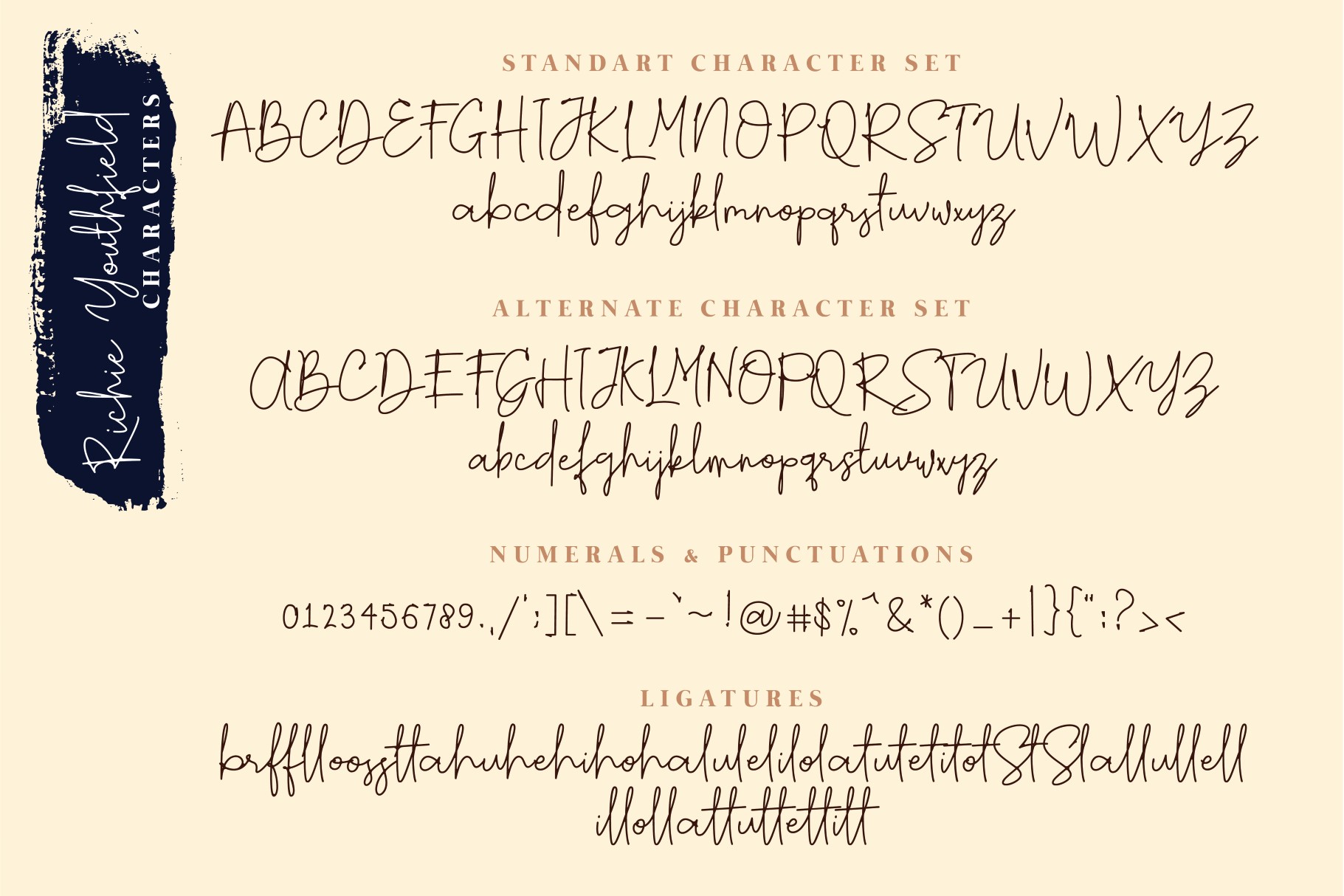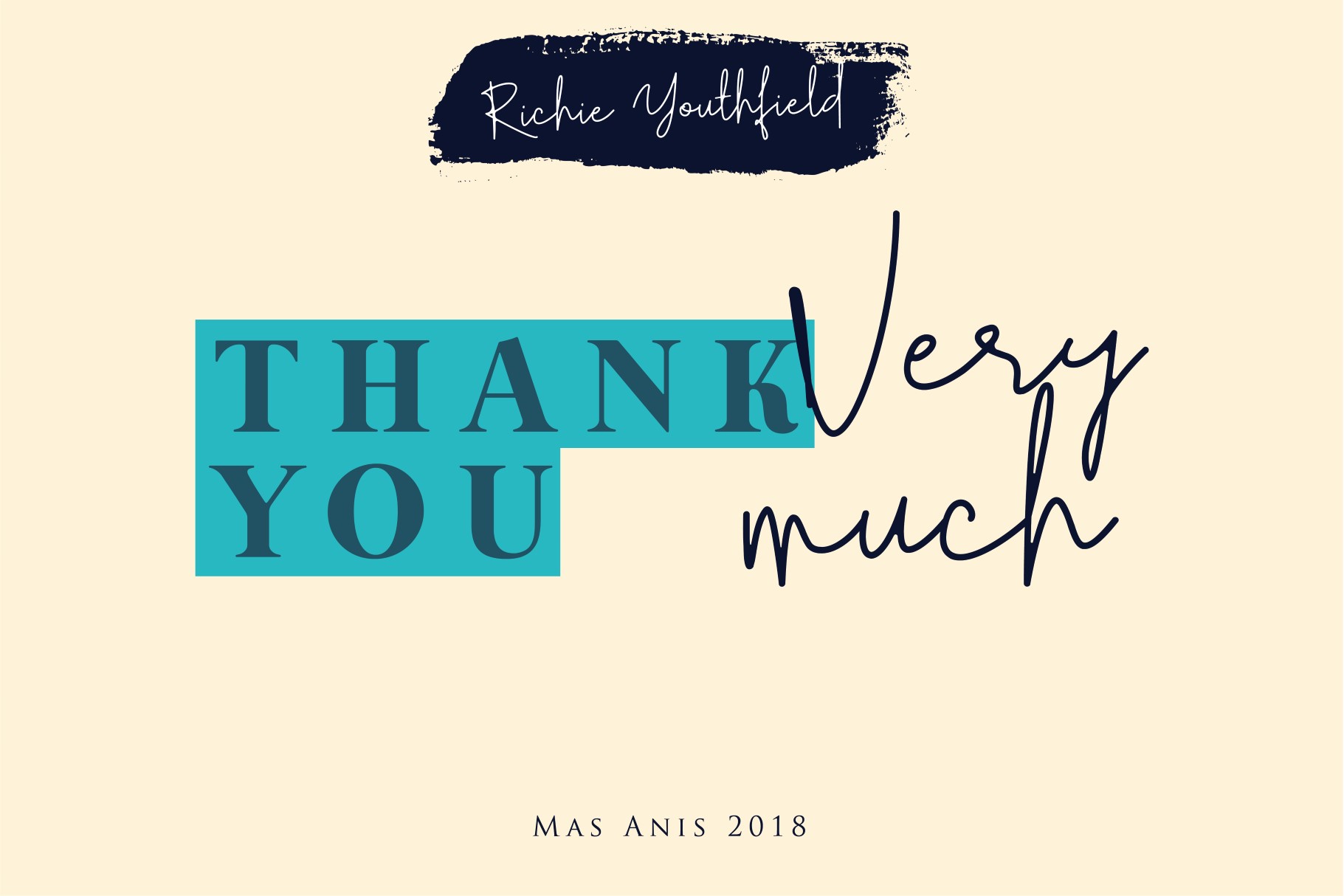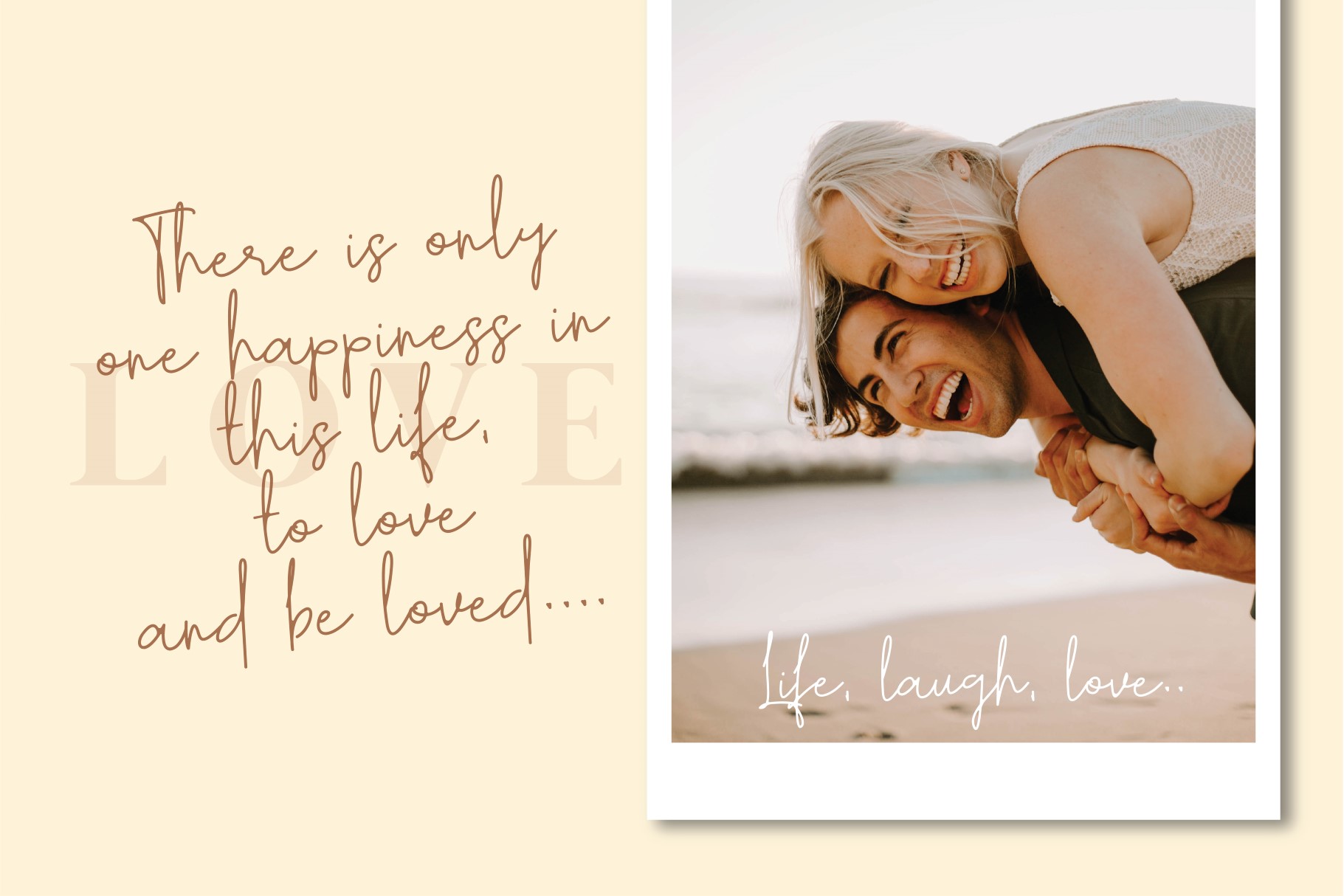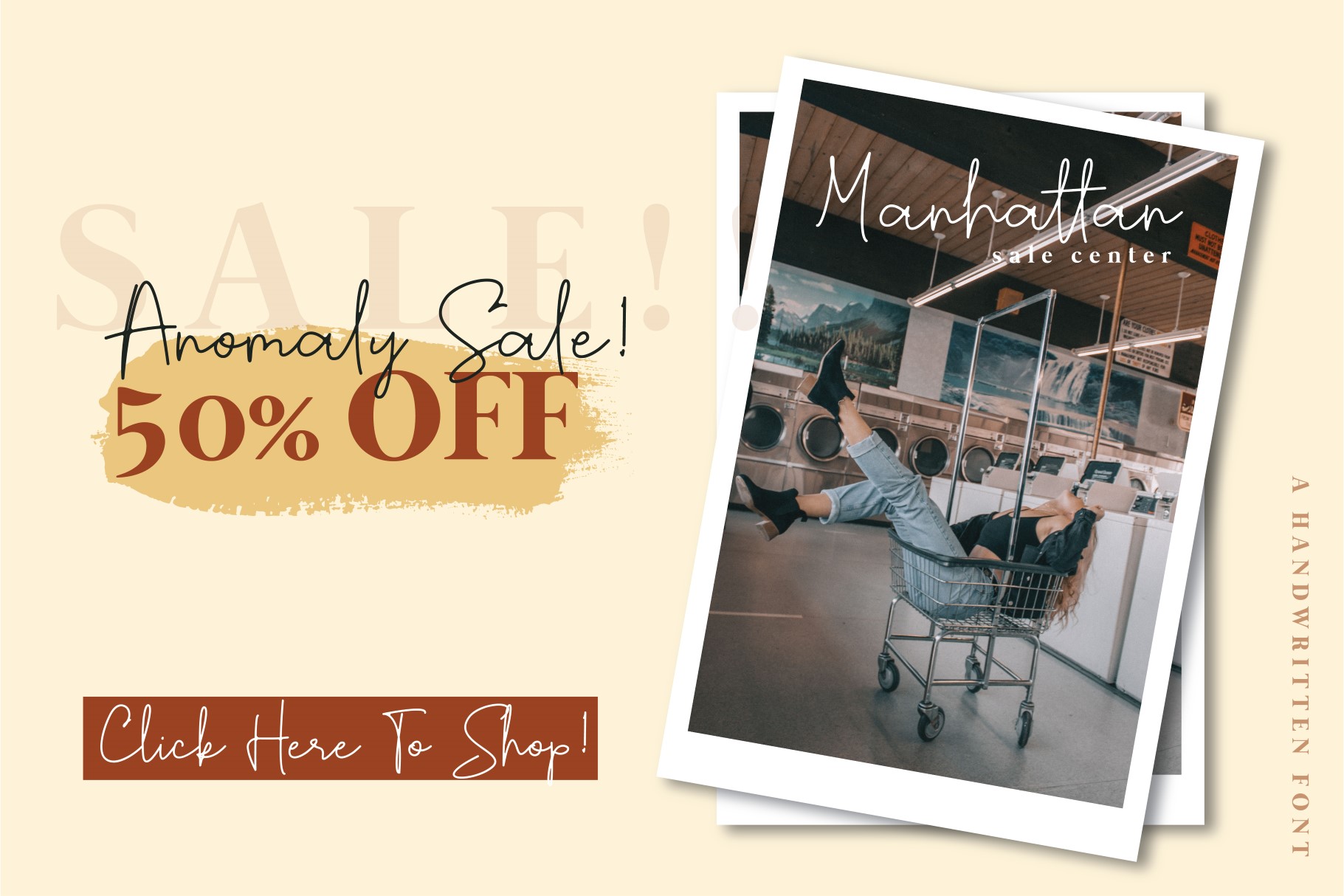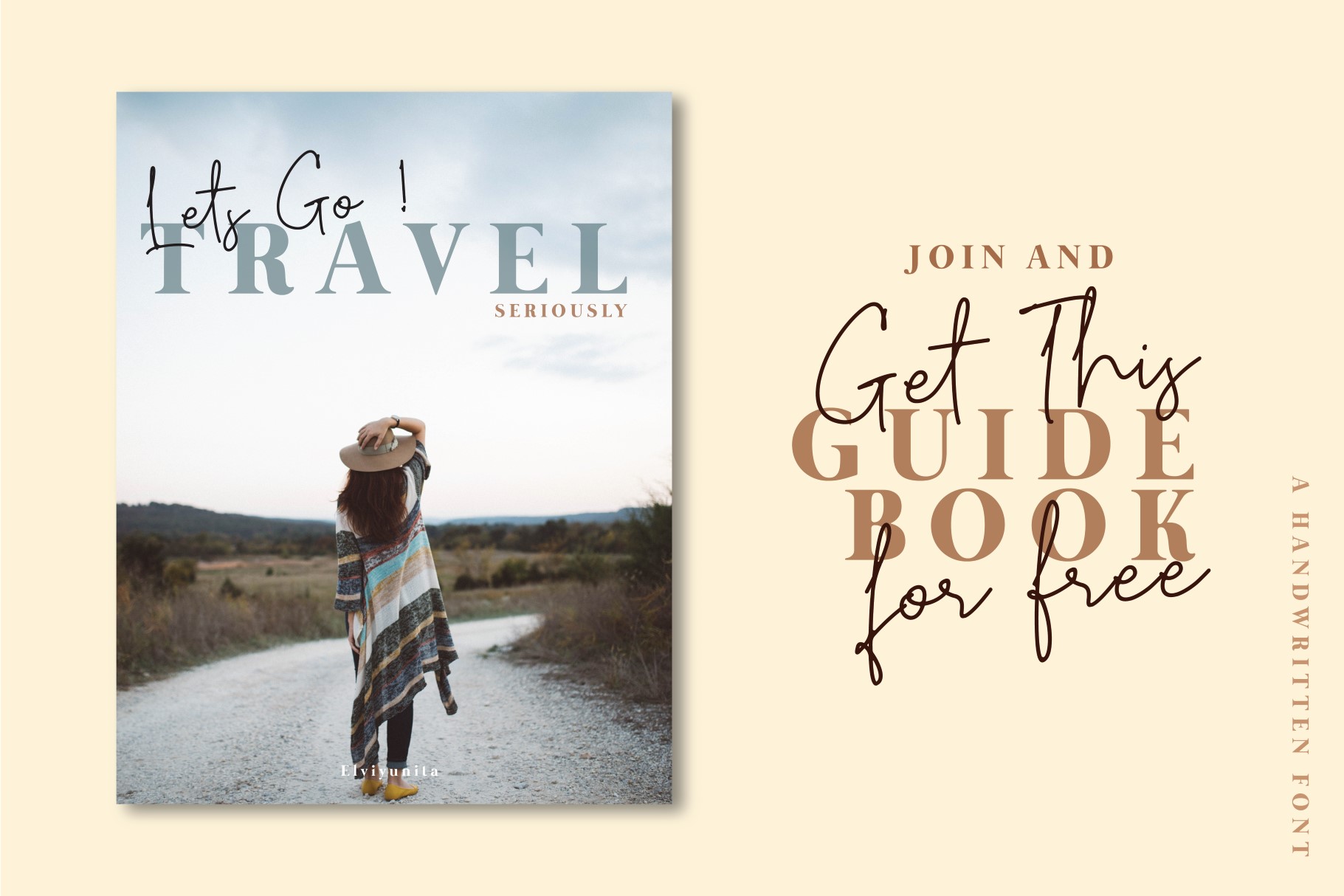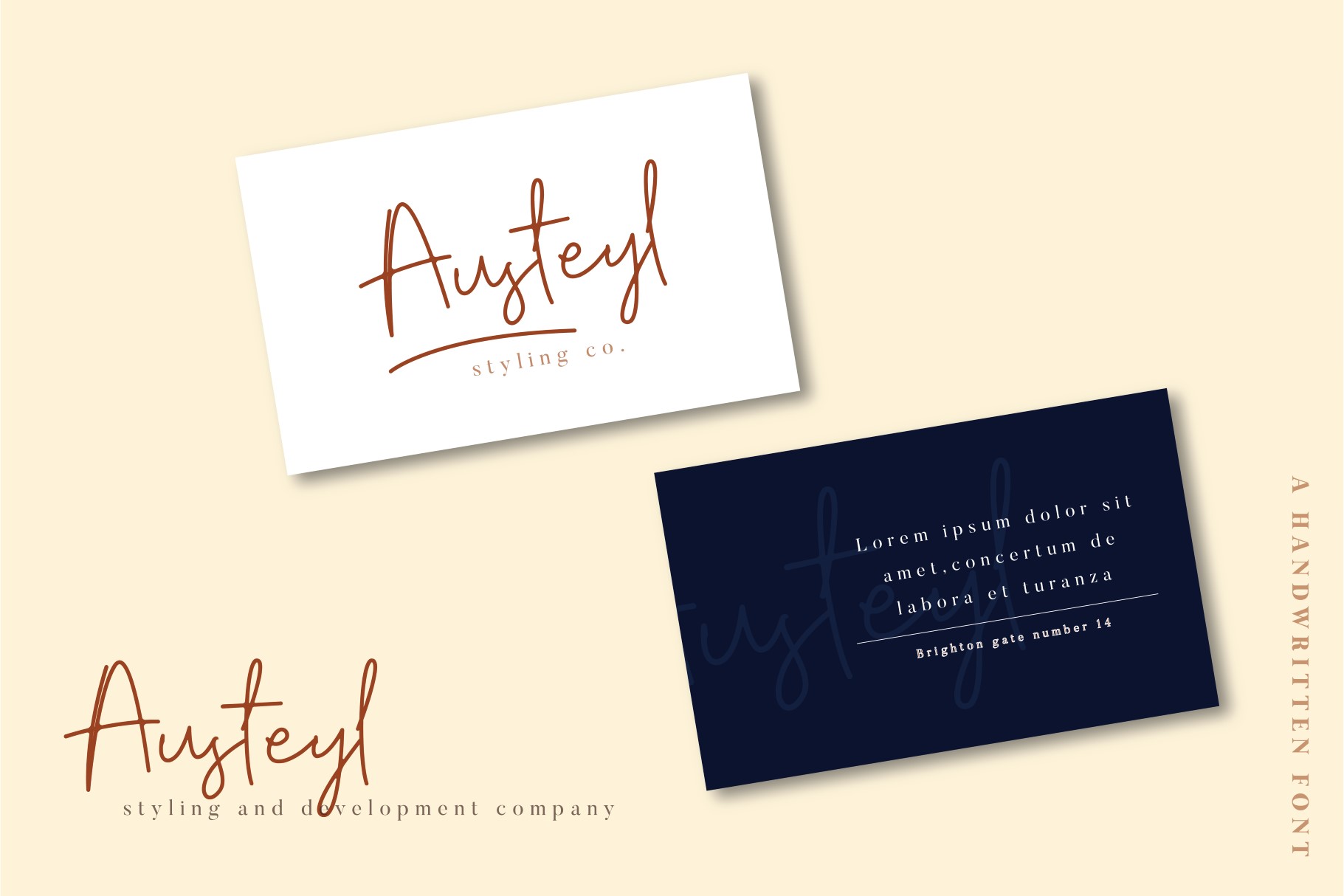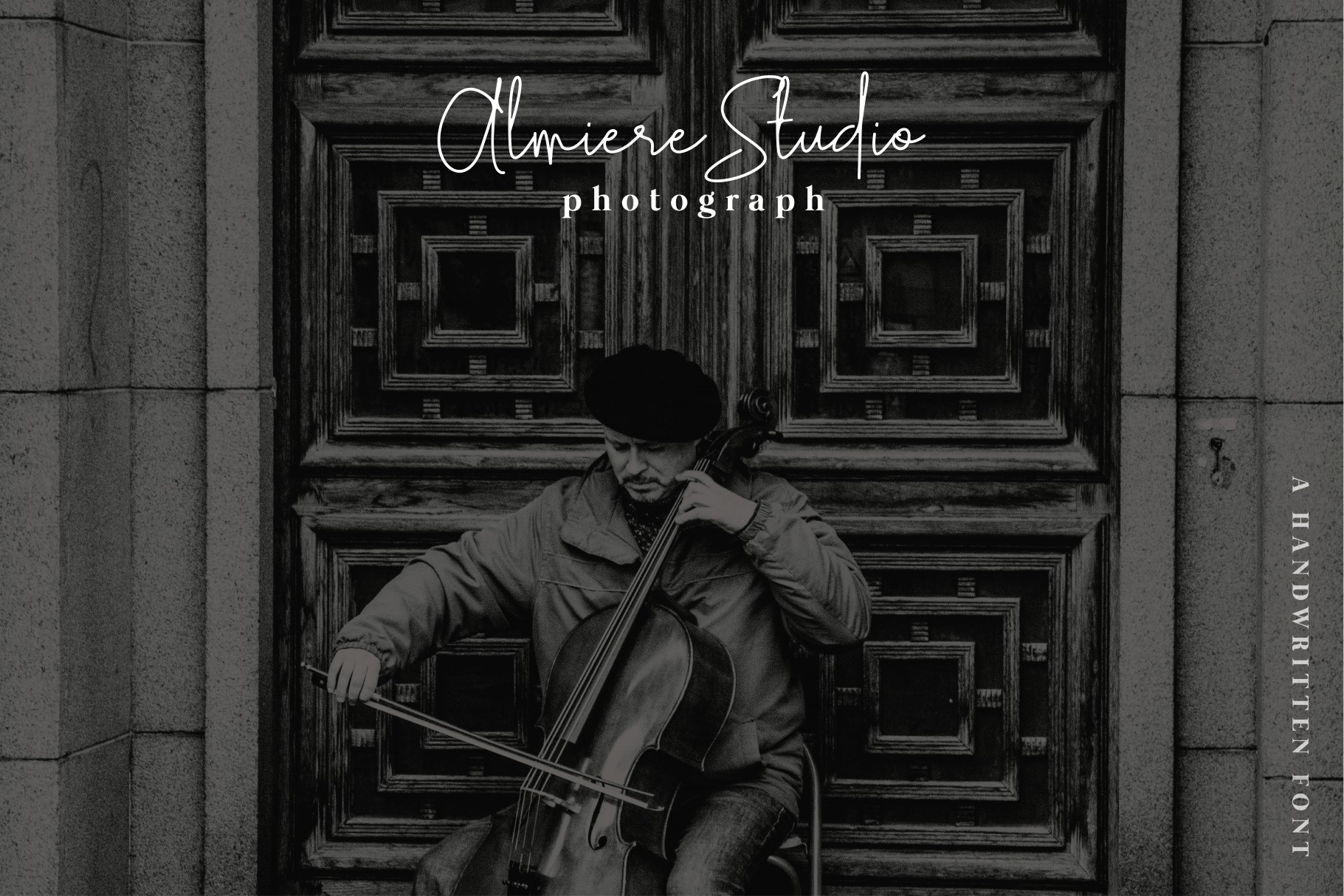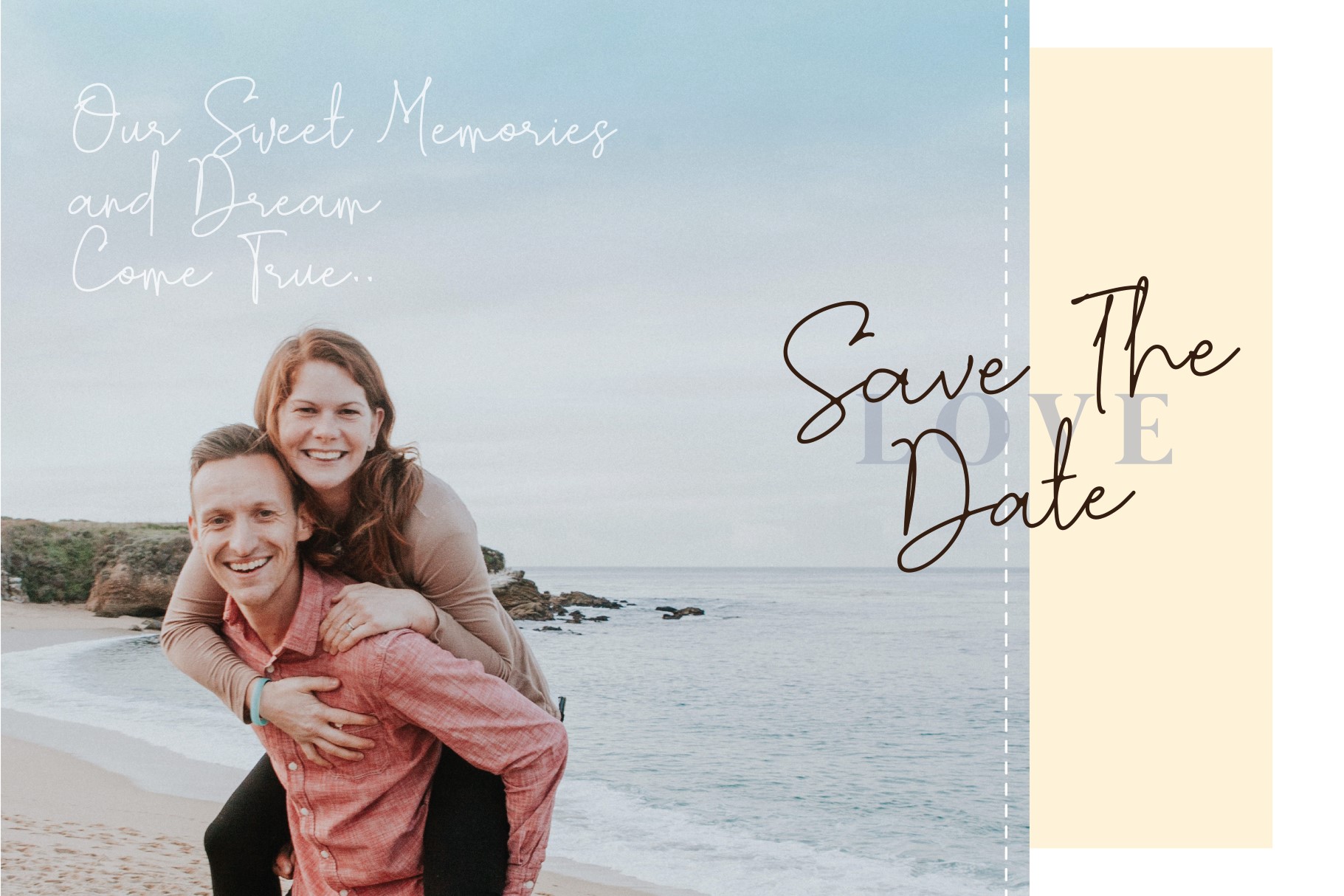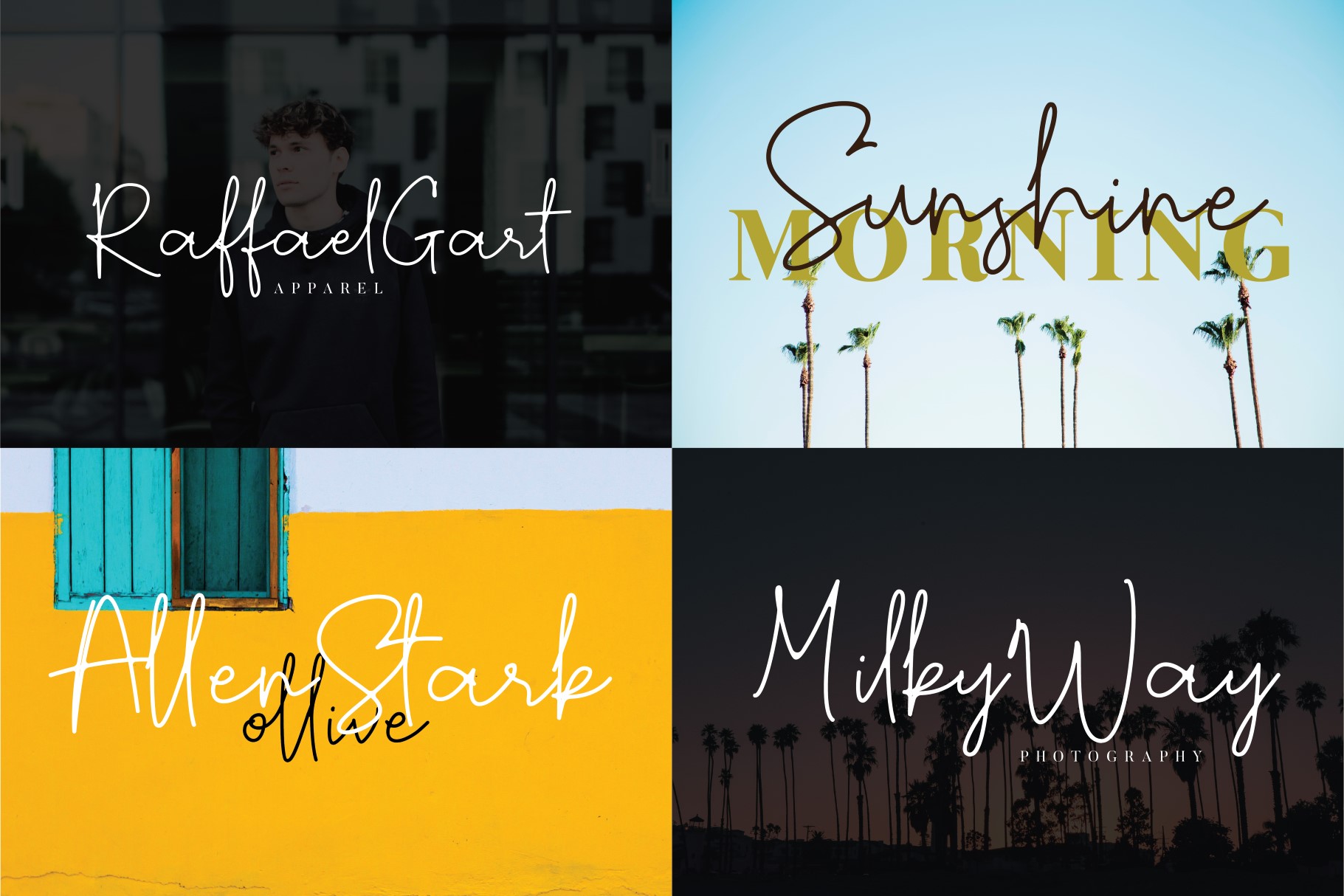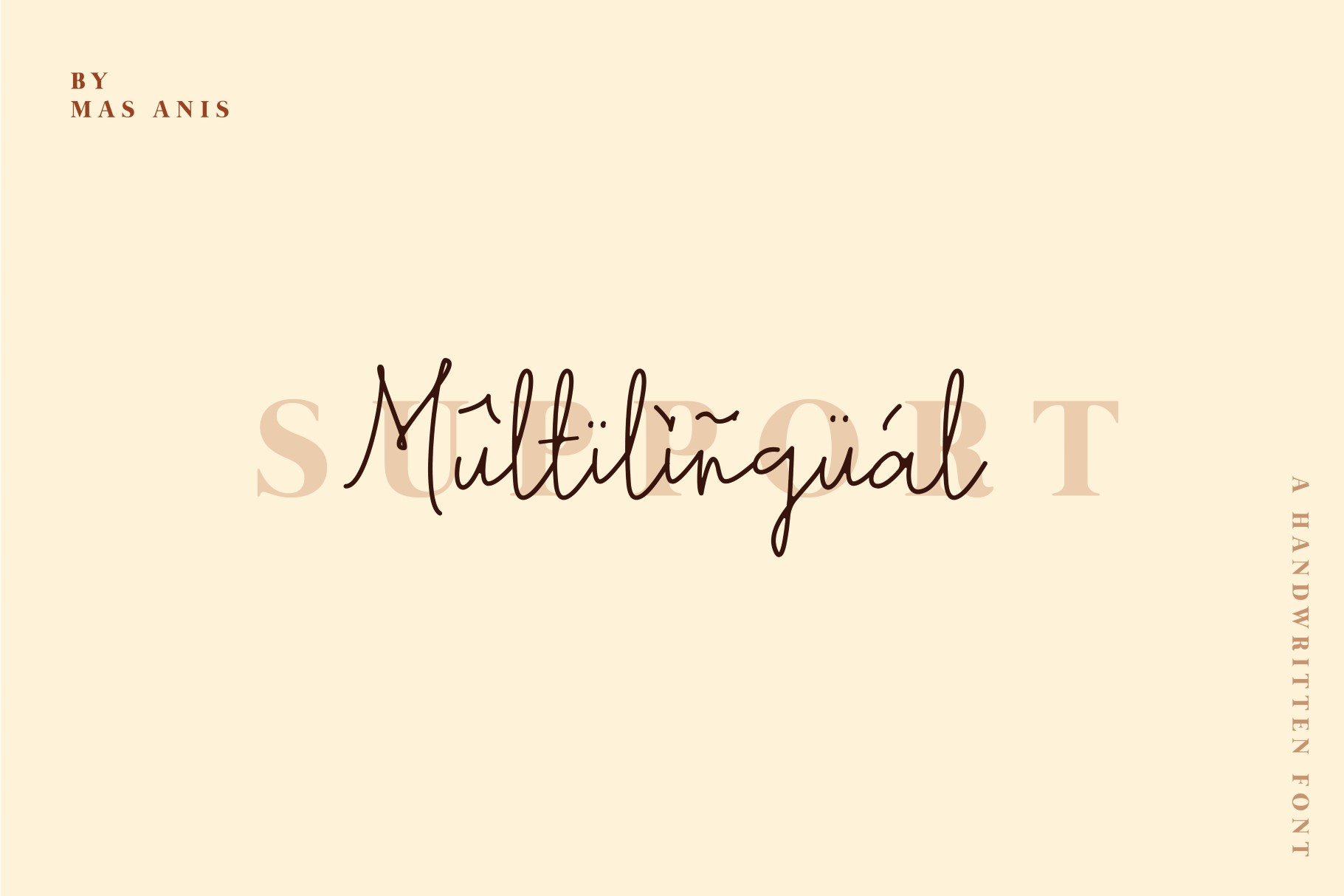
Richie Youthfield Font
About Richie Youthfield Font
Richie Youthfield is a brilliant signature font for your any design project. This font looks elegant, classy, readable, stylish, catchy and is incredibly easy to use! With modern and classy sensibilities, Richi Youthfield is a beautiful signature option for adding a stylish touch to your projects.